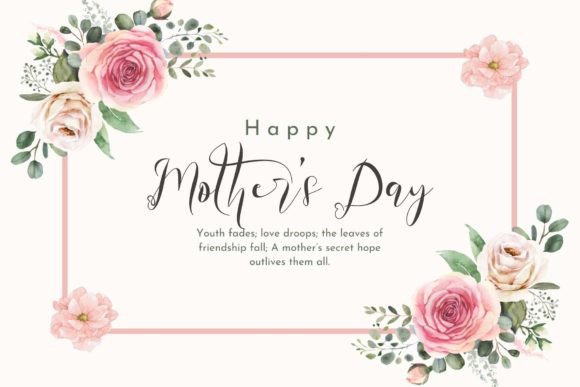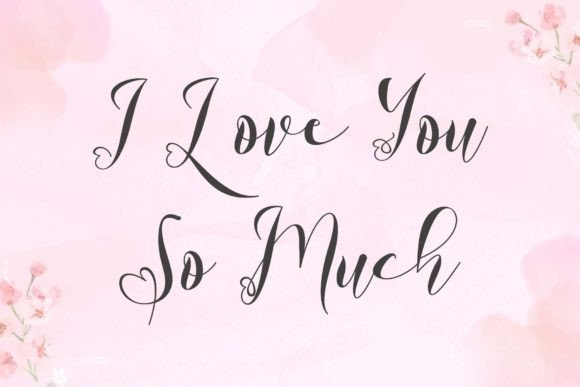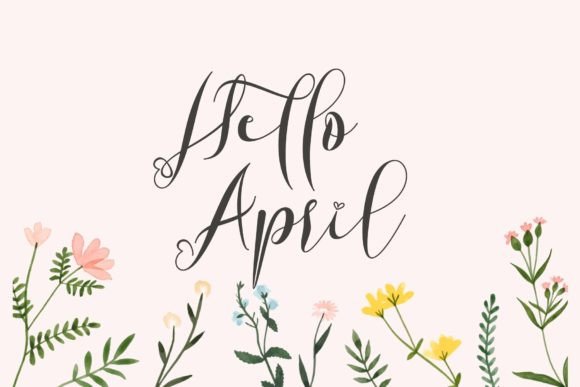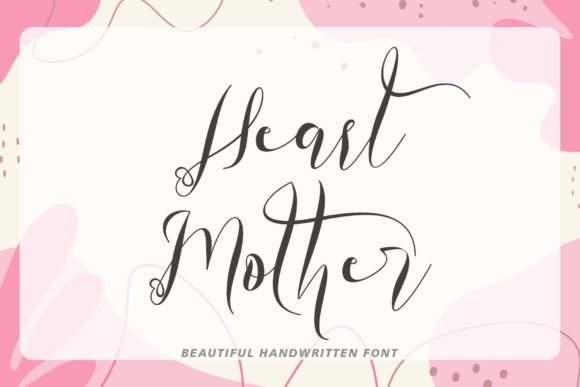
Introduction to Heart Mother Font
Heart Mother is a romantic script font that is perfect for adding a touch of elegance to any project.
Its beautiful cursive letters flow gracefully, and its delicate curves and loops give it a feminine charm Whether used for wedding invitations, love letters, or other romantic messages, this font is sure to impress.